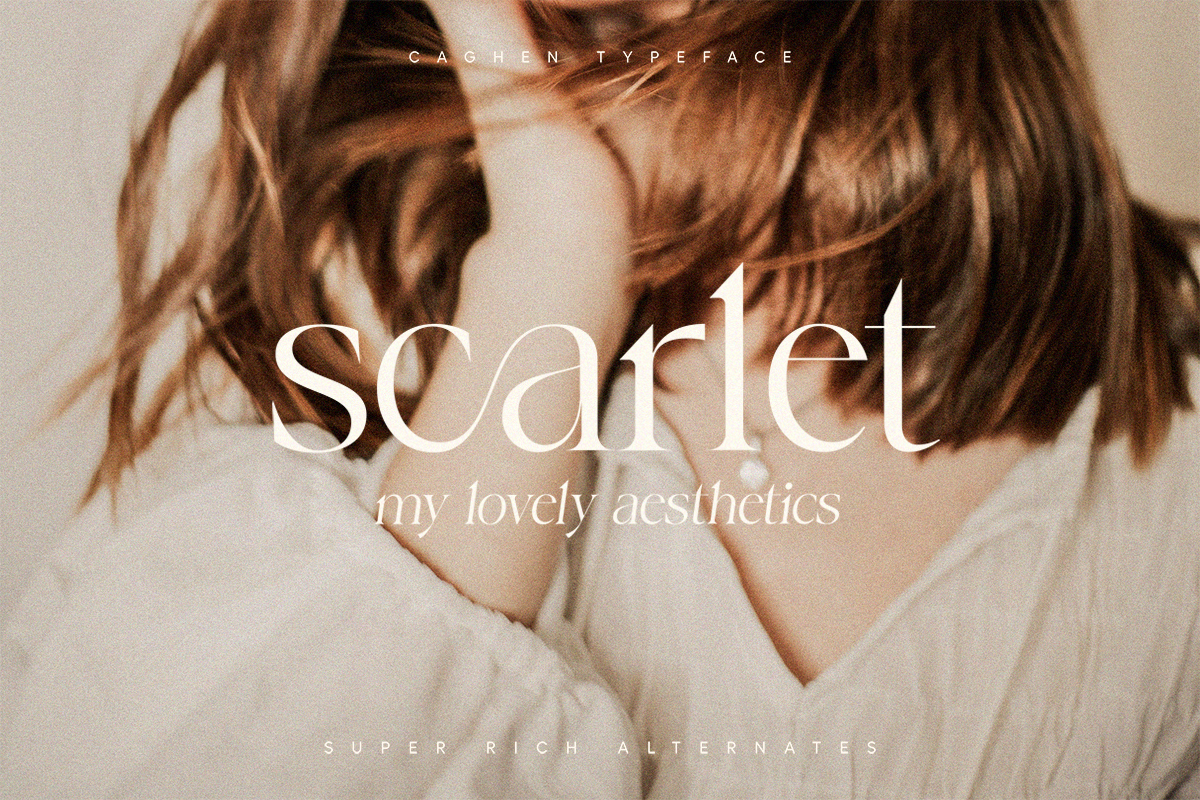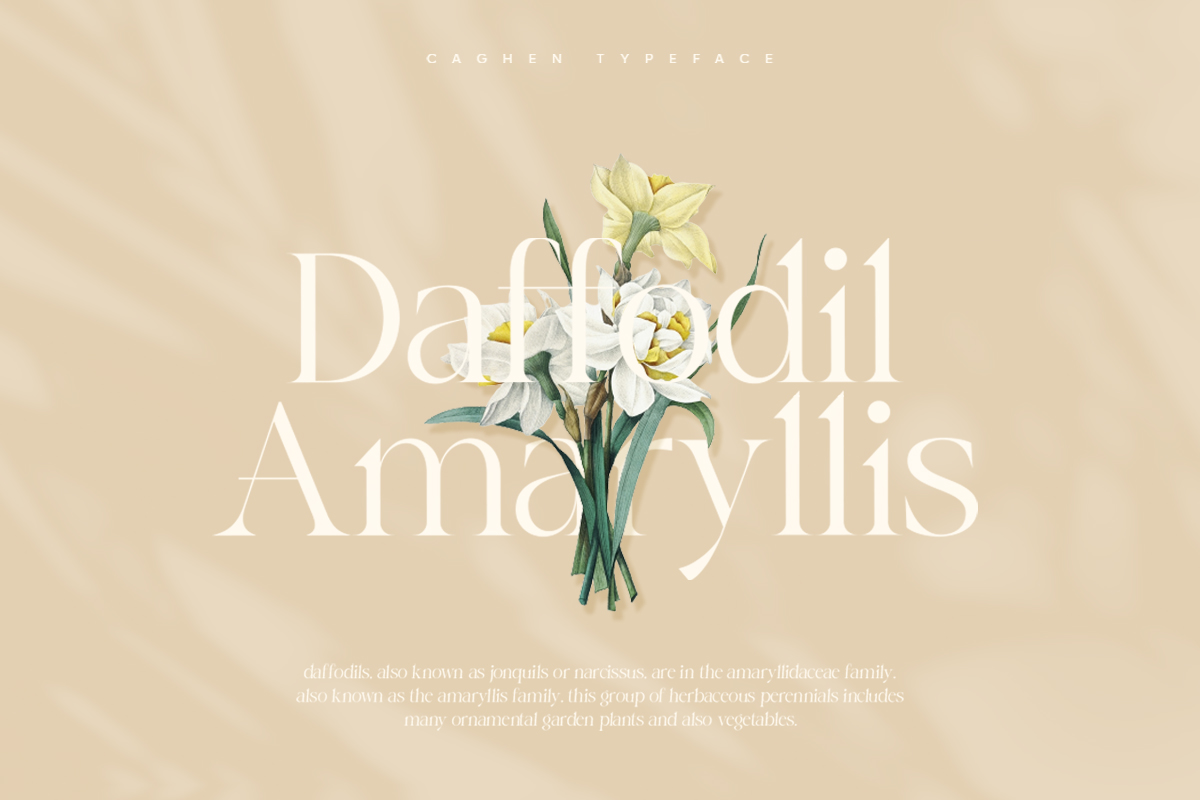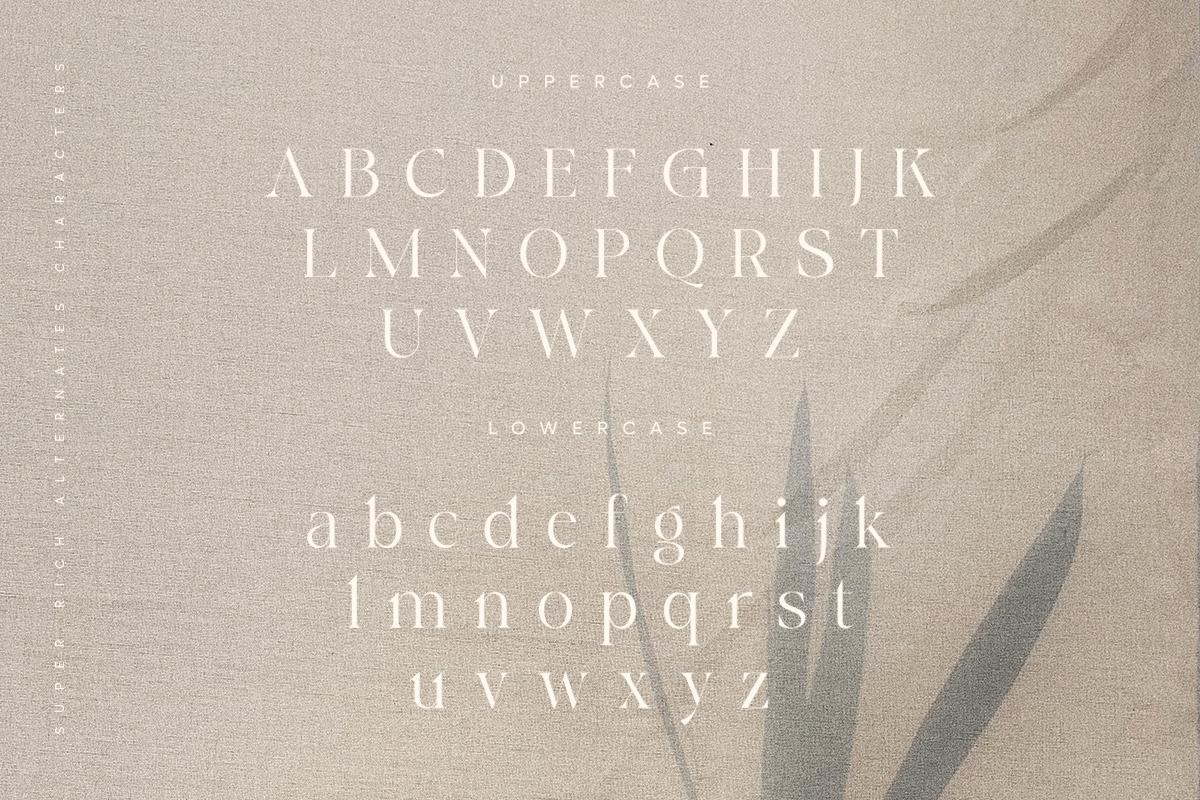
Caghen Font
Caghen Serif Font
This is classic Serif Character Inspired By Modern and Rich Characters. Caghen is a great choice for fashion projects, headlines, titles, posters, packagings, covers and logotypes but can be also successfully used in some occasional texts.*